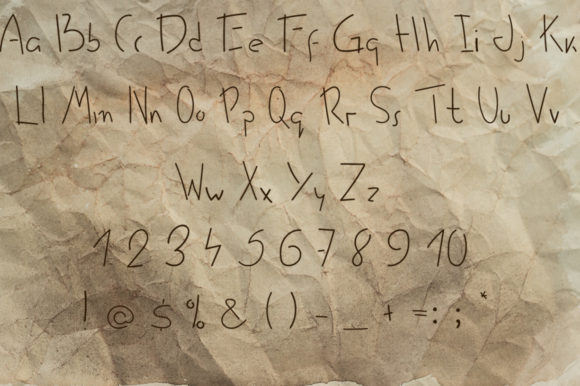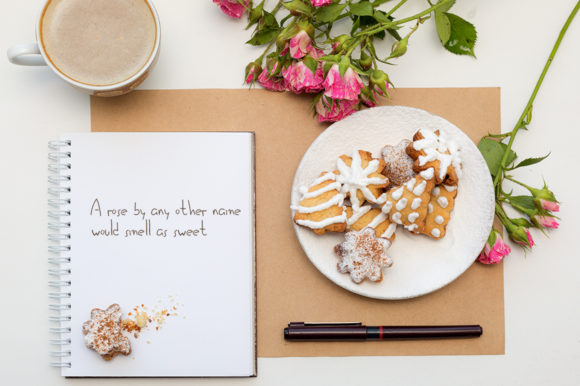
Quick Handwritten Font
About Quick Handwritten Font
Quick Handwritten is a simple and minimalistic handwritten font. It looks beautiful on a variety of designs requiring a personalized style, such as wedding invitations, thank you cards, weddings, greeting cards, logos and so on.